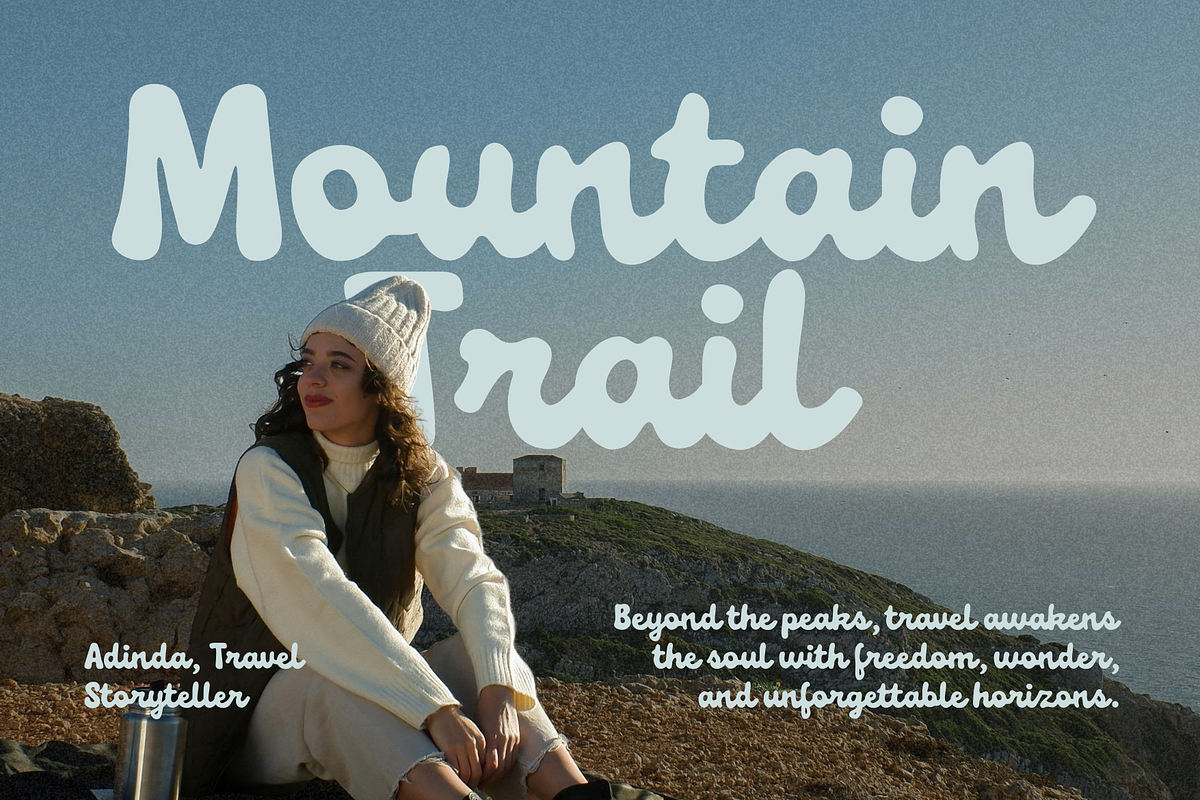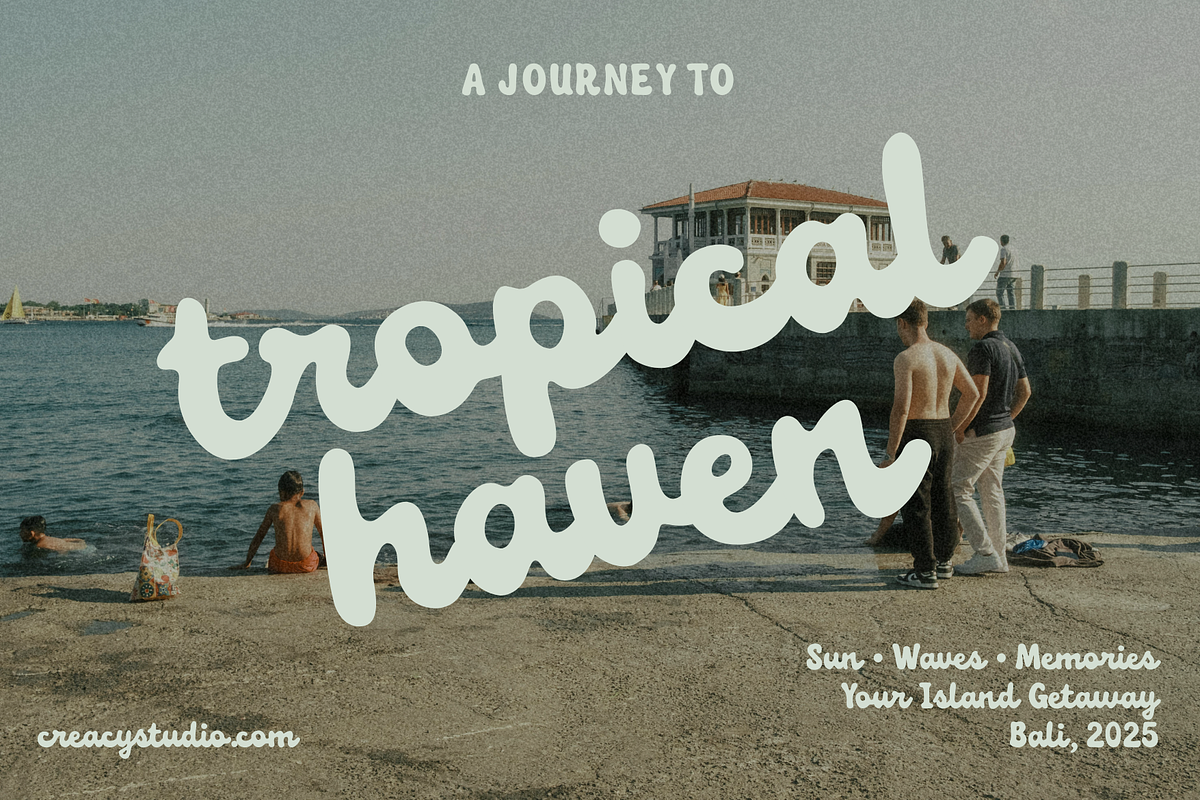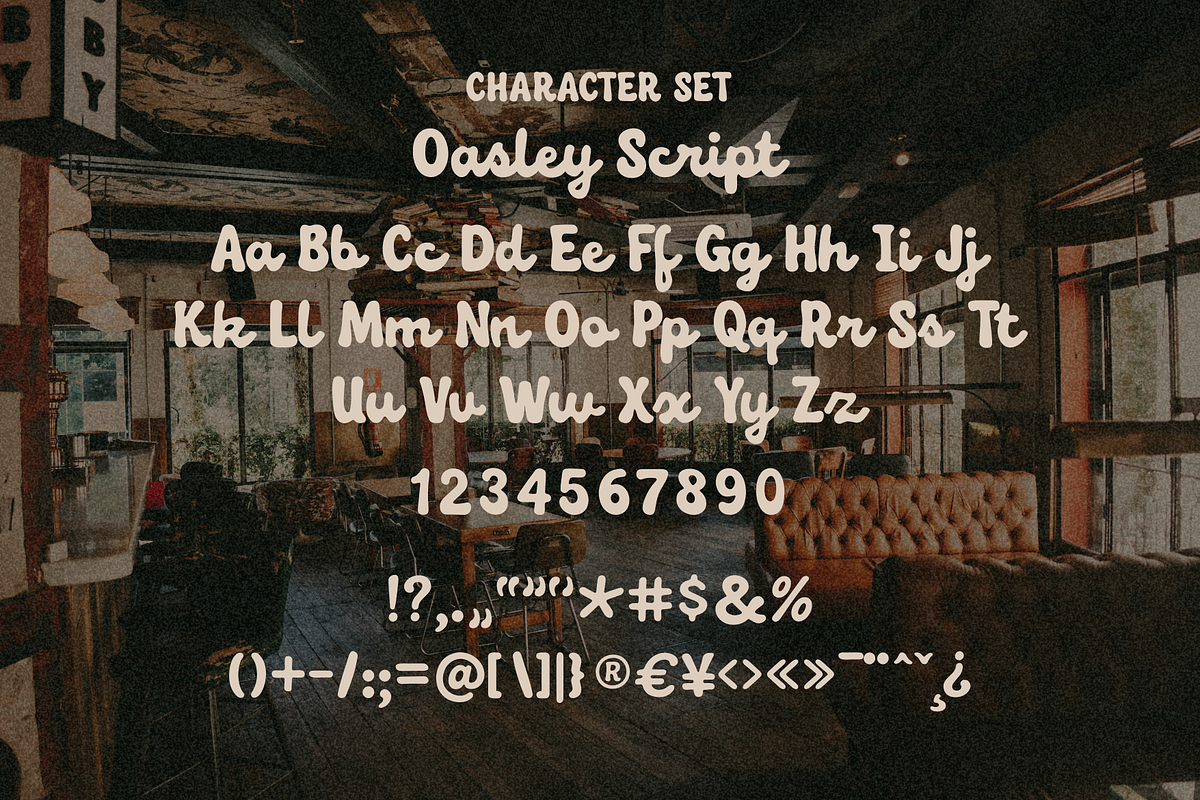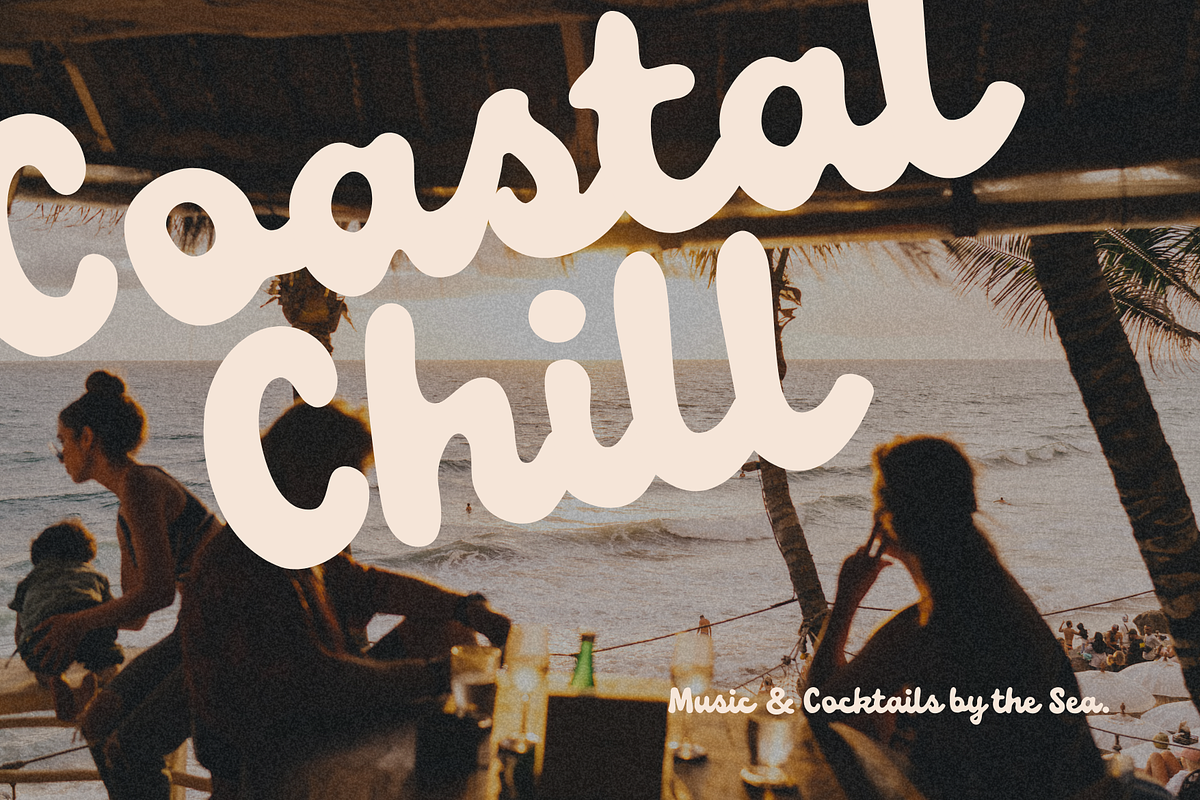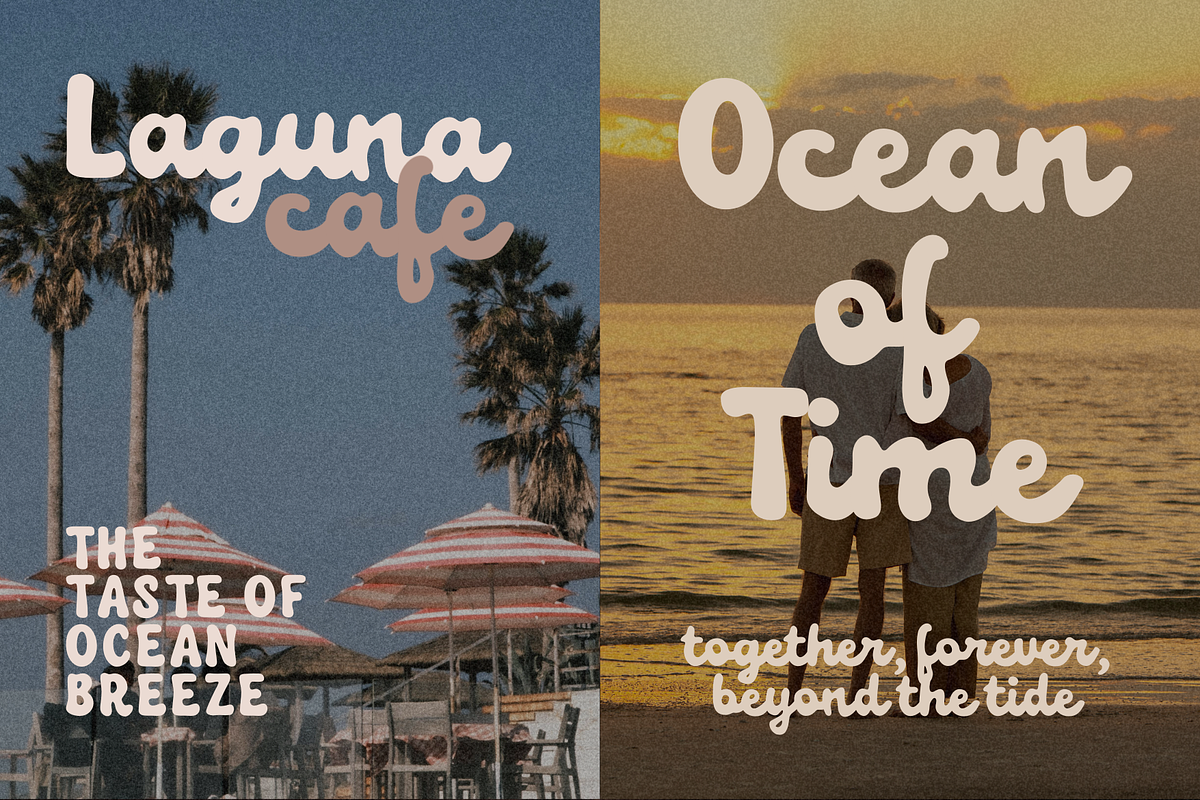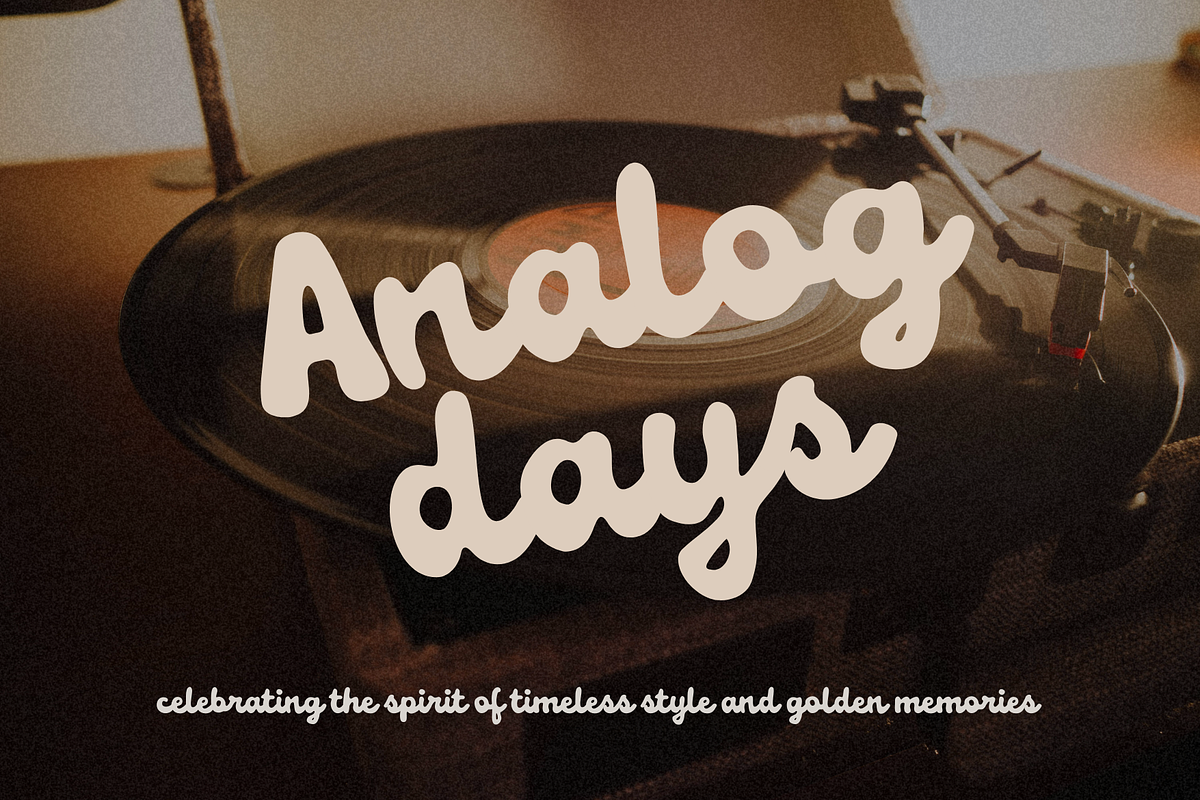
Oasley – Nostalgic Script Typeface
Oasley is a retro-inspired script typeface that brings back the warmth of nostalgia with a modern twist. Featuring bold, smooth, and playful letterforms, this font is designed to capture timeless charm while remaining versatile for contemporary use.
Its soft curves and natural flow make Oasley perfect for designs that need personality and a touch of vintage flair, yet still highly readable across various applications.
- Branding & Logos
- Coffee Shop & Cafe Signage
- Retro Posters & Music Events
- Product Packaging (coffee, food, apparel)
- Quotes, Social Media & Travel Stories
- Wedding Invitations & Greeting Cards
Bring your designs to life with Oasley—a typeface that celebrates warmth, storytelling, and timeless style.